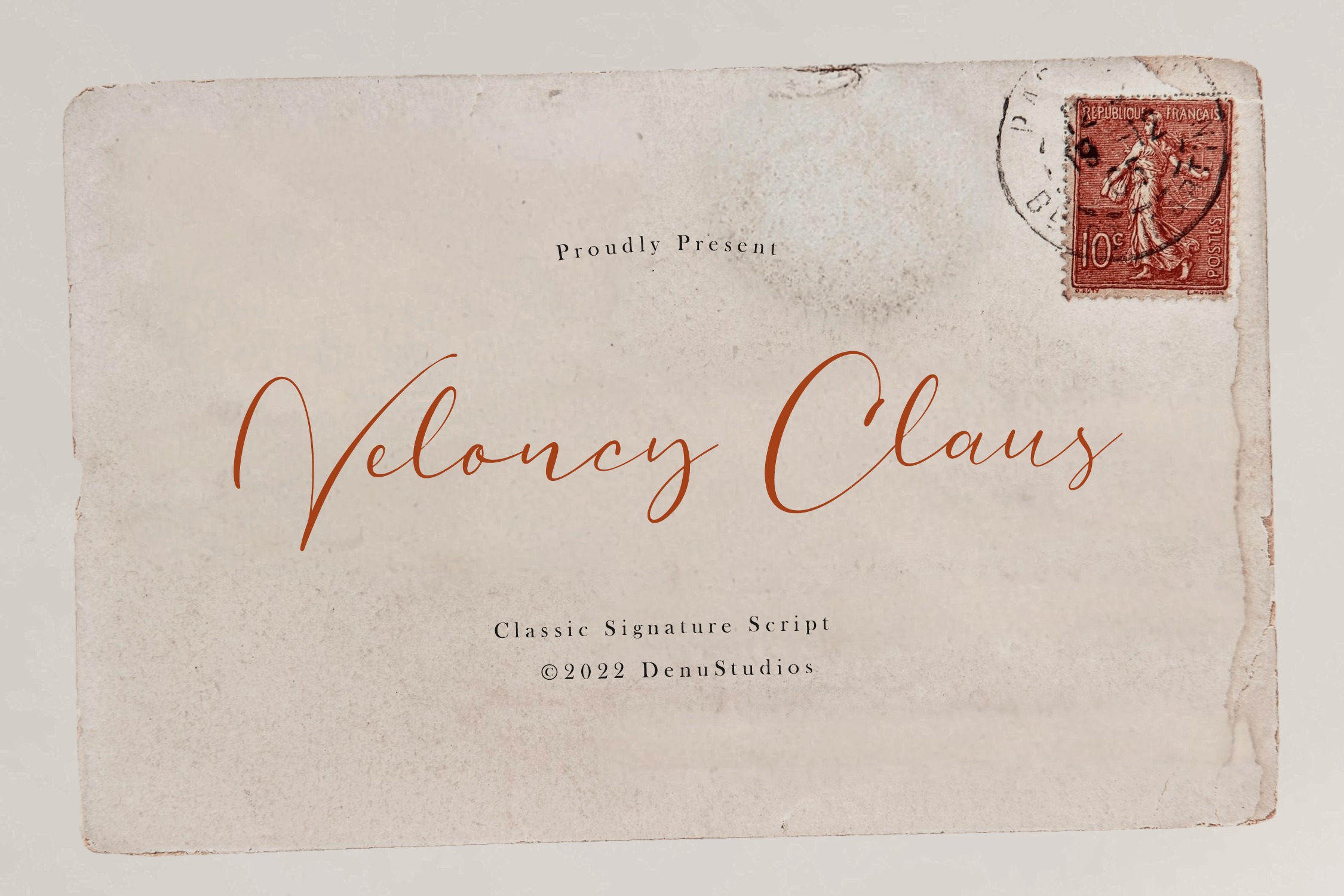
Veloncy Claus – Signature Script Font
Veloncy Claus – Signature Script Font is a professionally designed typeface that delivers clarity, structure, and consistent performance across various design applications. Veloncy Claus| Classic Signature Script, from Gracetypestudio, suitable for any projects such as: logos, branding projects, homeware designs, product packaging, mugs, quotes, posters, shopping bags, t-shirts, book covers, name card, invitation cards, greeting cards, label, photography, watermark, special events, and all your other lovely projects that need a Script taste.